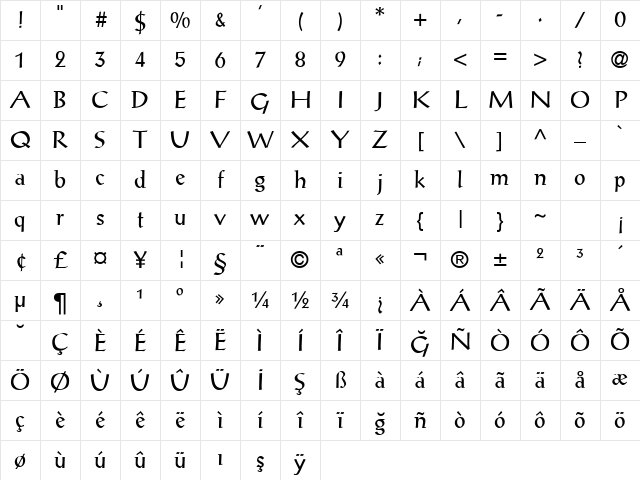
TrSah Prose Antique Plain
Complete TrSah Prose Antique Plain glyph index. Displaying only characters natively supported by TrSah Prose Antique Plain font.
Design Context for TrSah Prose Antique
TrSah Prose Antique wears its vintage influences proudly, with letterforms that recall mid-century signage, classic packaging, and nostalgia-driven design.
Font Pairing: Combine TrSah Prose Antique with a simple slab or neutral sans - period-accurate companions reinforce the vintage feel without competing for attention.
Pro Tip: Lean into TrSah Prose Antique's period character by pairing it with aged paper textures, muted colour palettes, and vintage illustration styles.